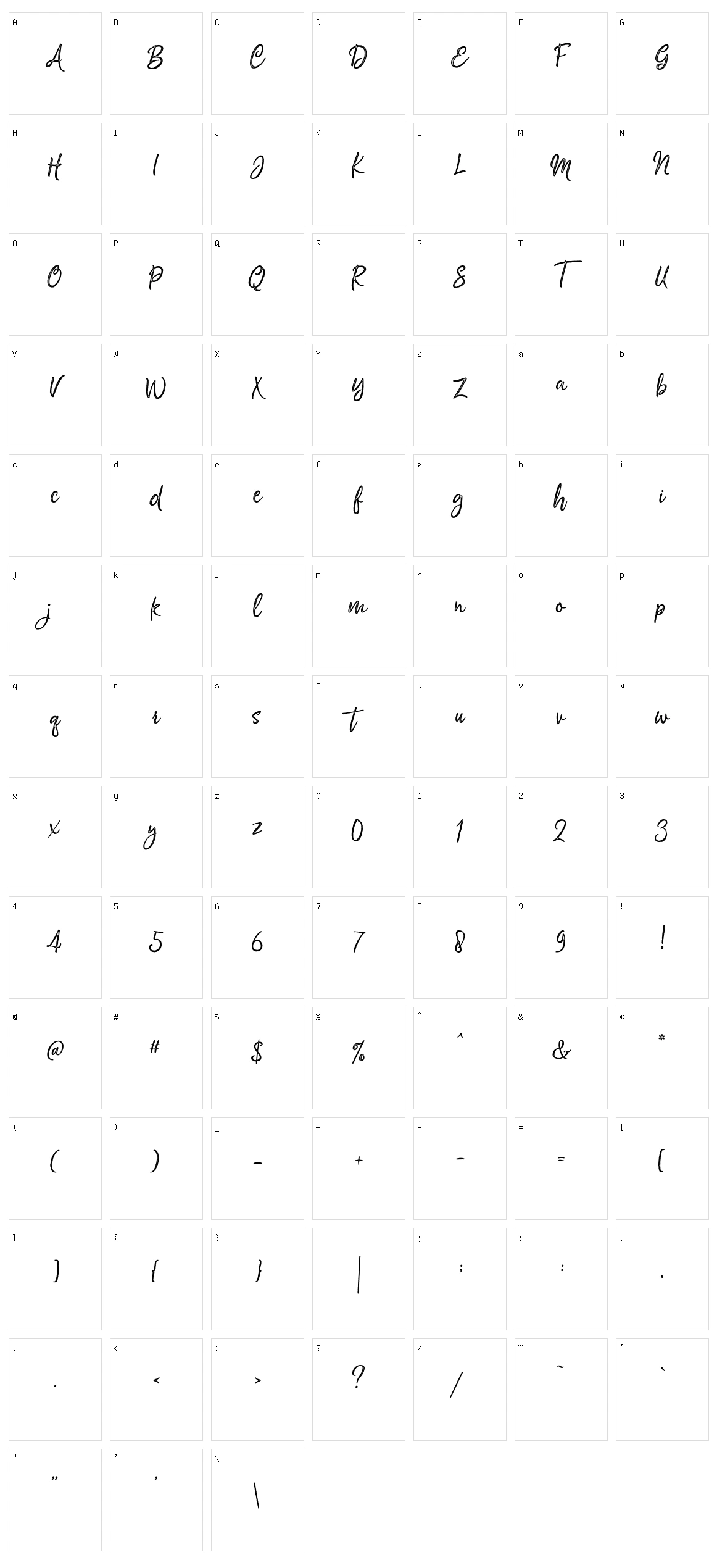
The free font Silentmind Rough is carefully designed by River Side, showcasing a thoughtful balance of creativity and usability and falls under the Script font style. When you download the ZIP file, it contains only 642.71 KB of font files, making it lightweight and quick to download. Please review the license details below to understand permitted usage and distribution rights. If license information is not available, we recommend using this font for personal projects only or contacting the author directly for commercial usage permissions.